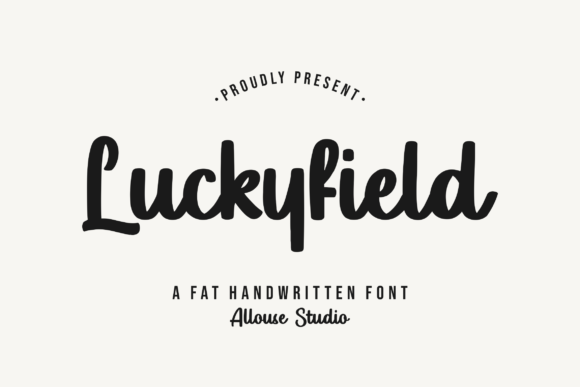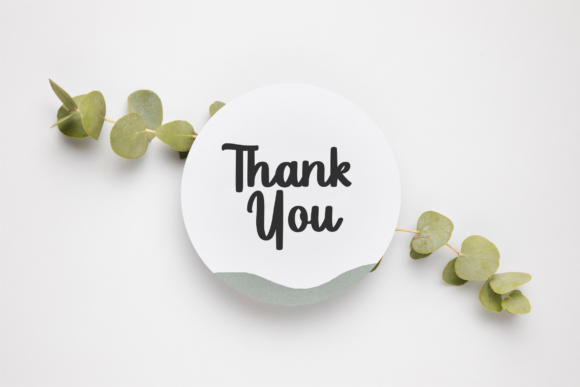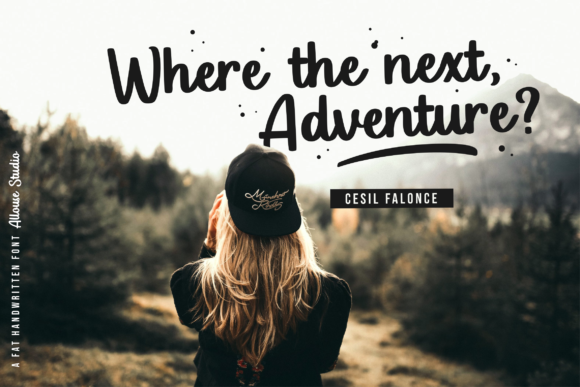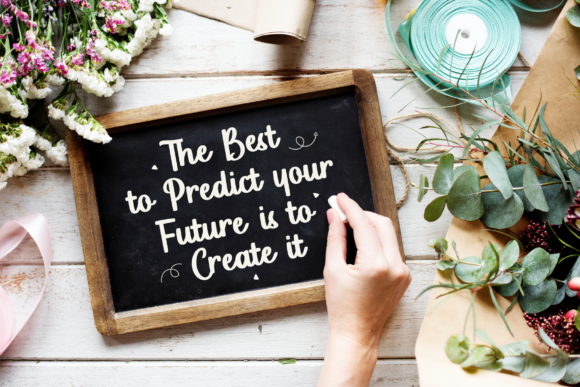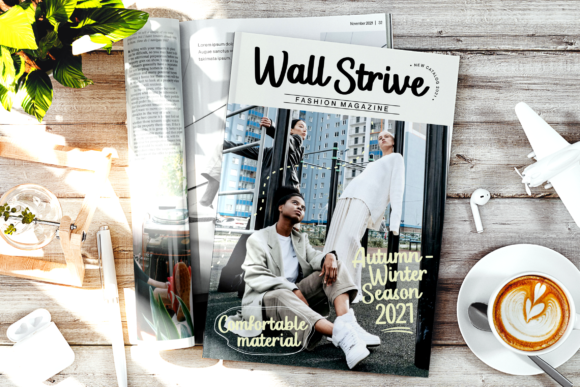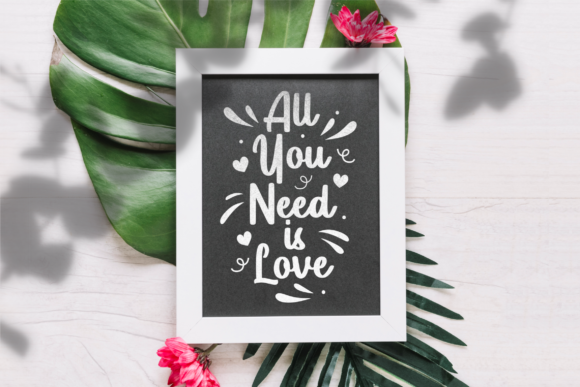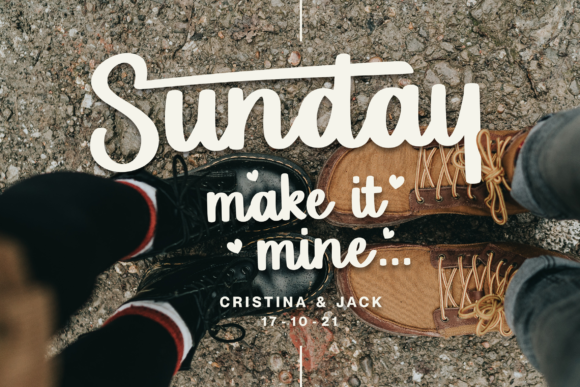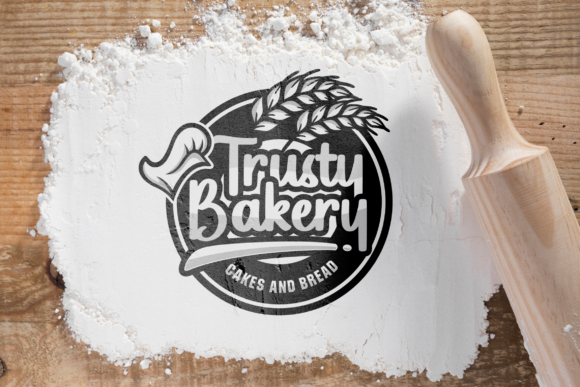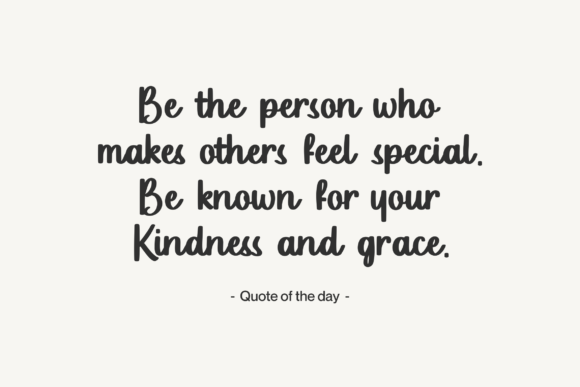
Luckyfield Font
About Luckyfield Font
Luckyfield is a lovely and delicate script font that exudes elegance and class. This font was particularly crafted for those who need a beautiful and refreshing look to their designs.